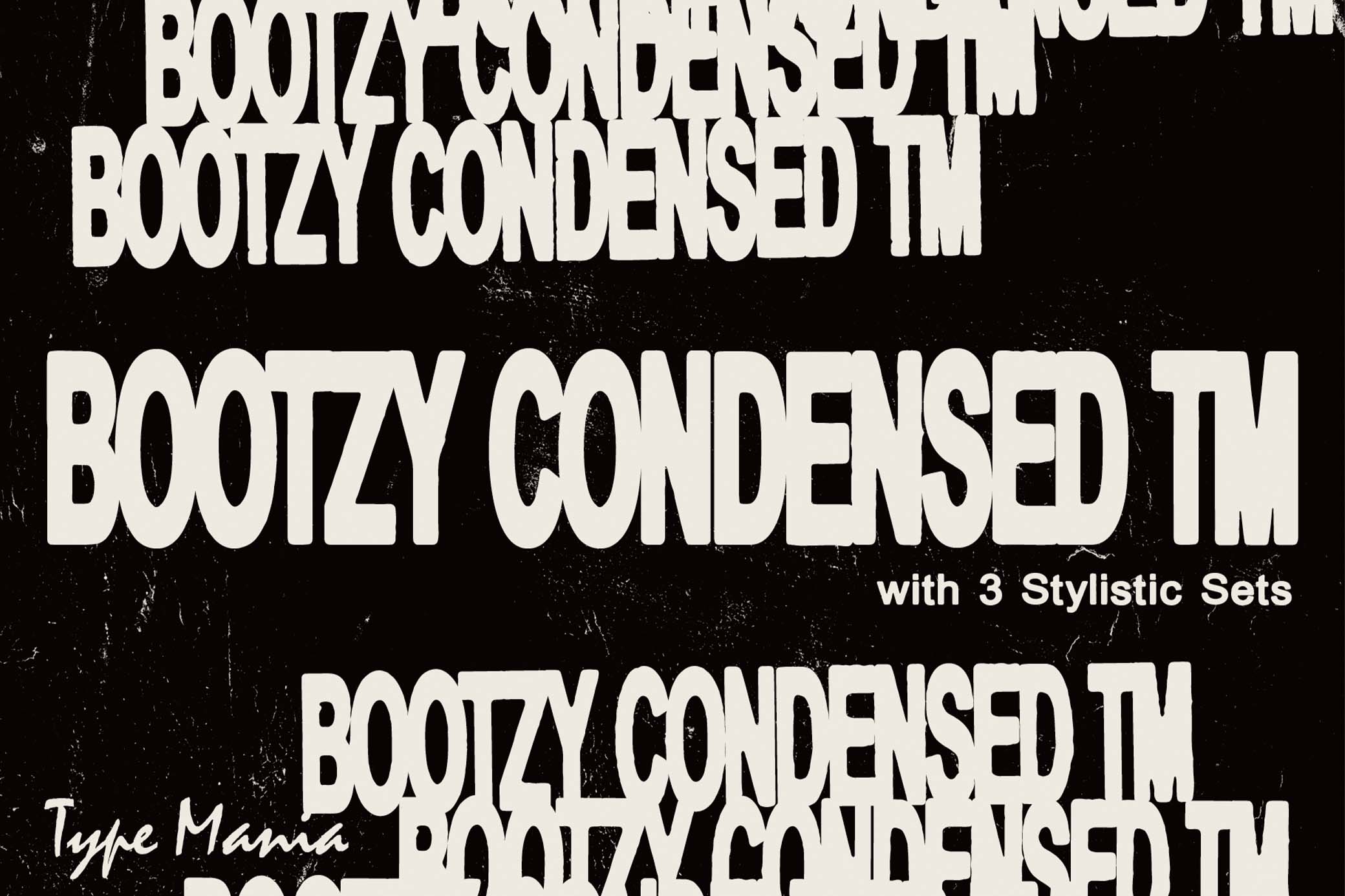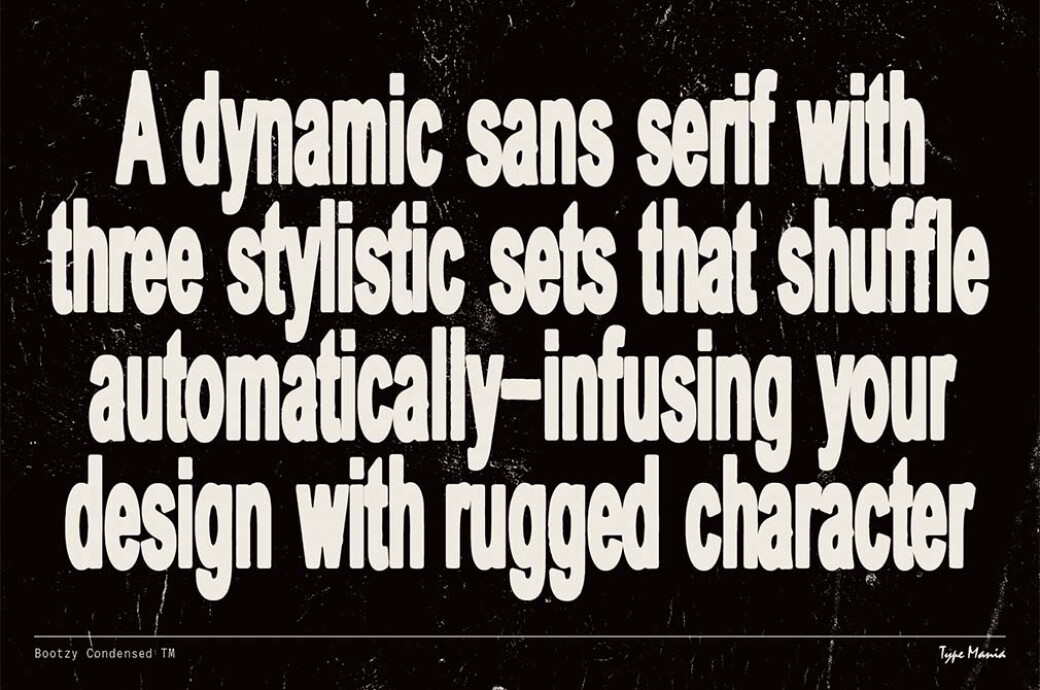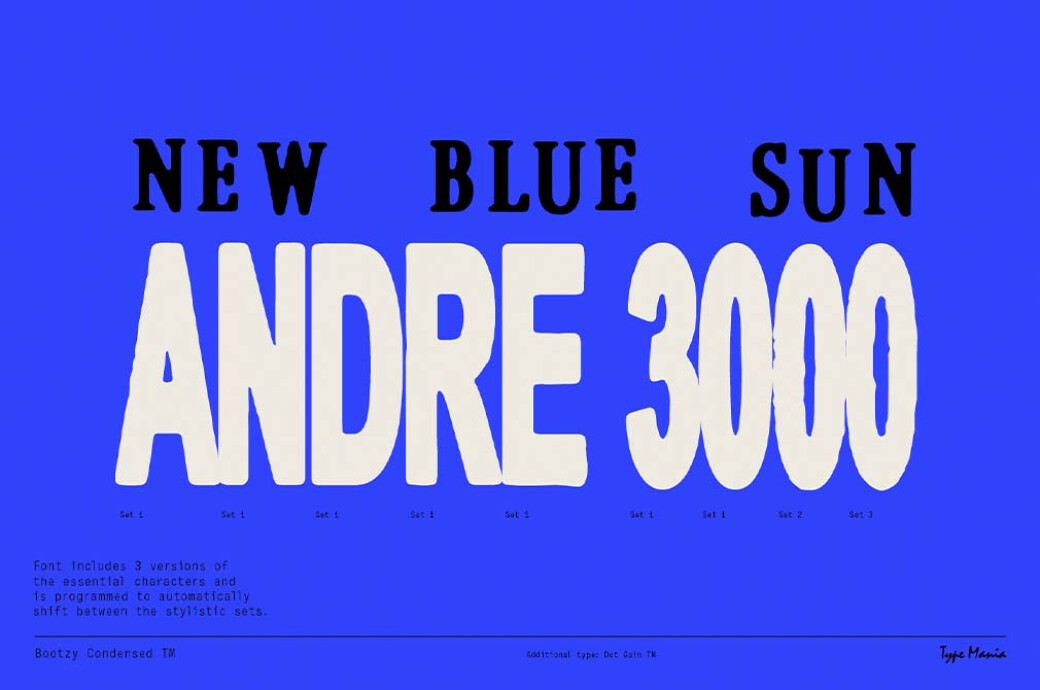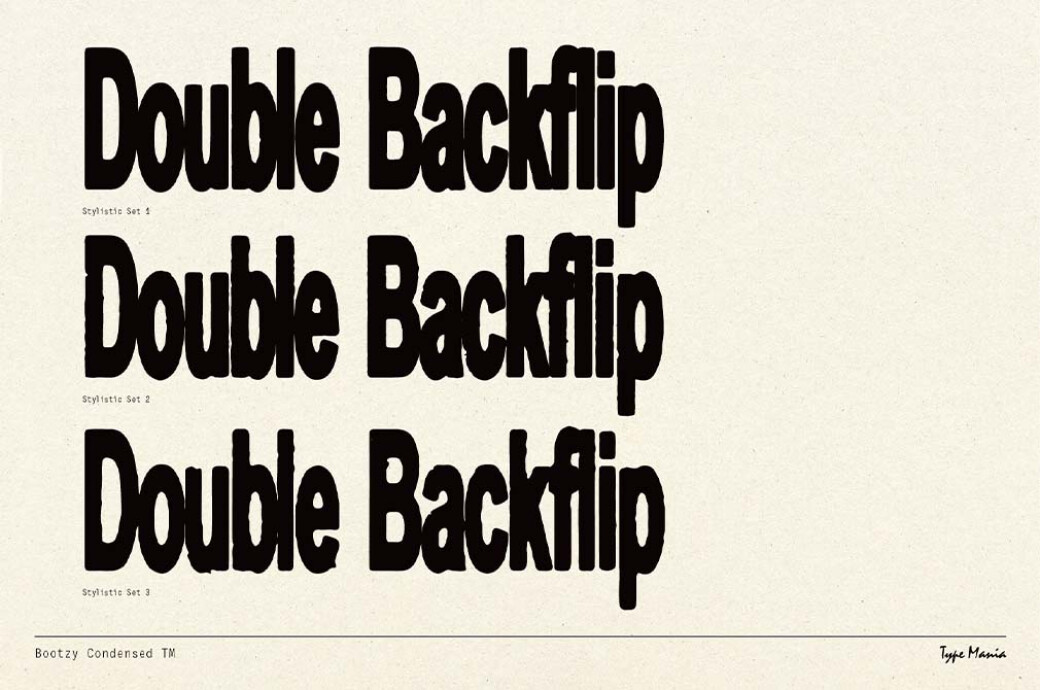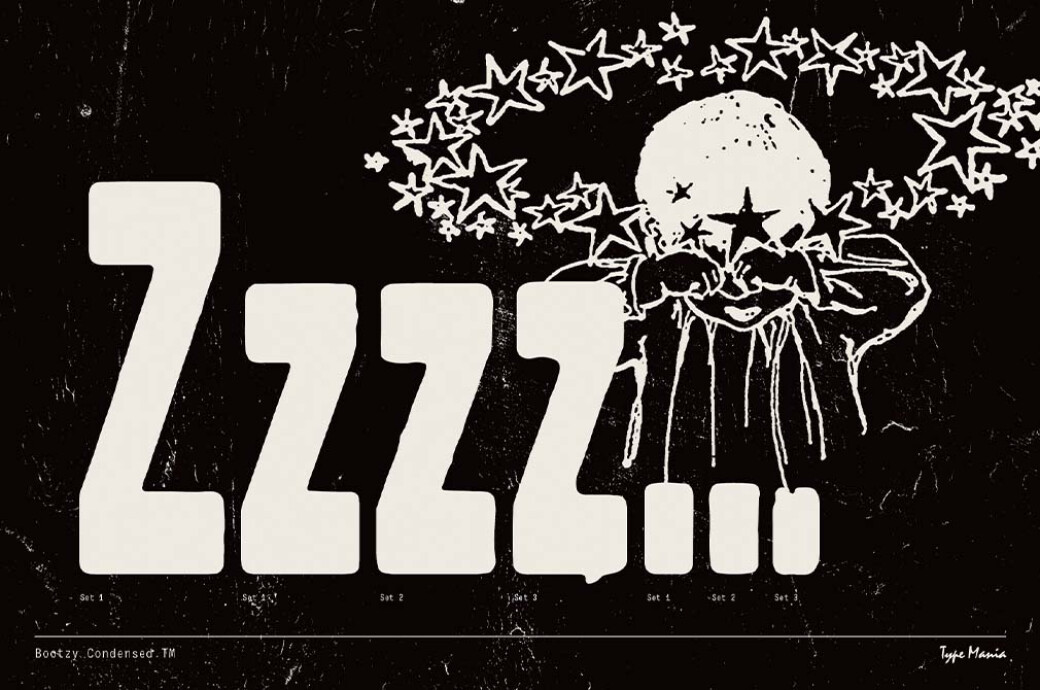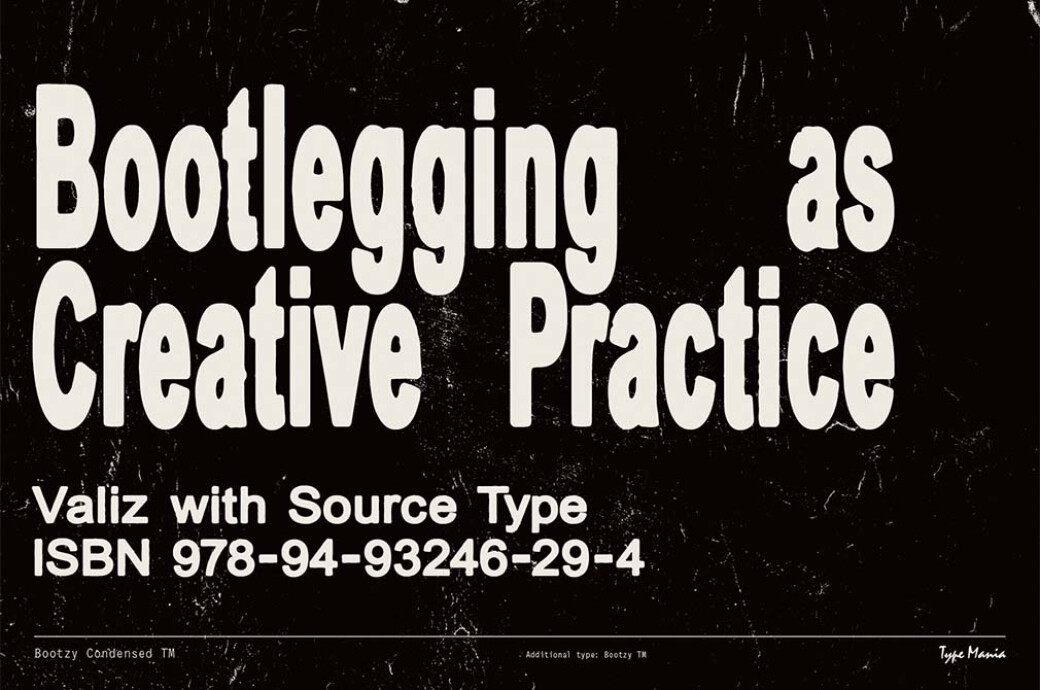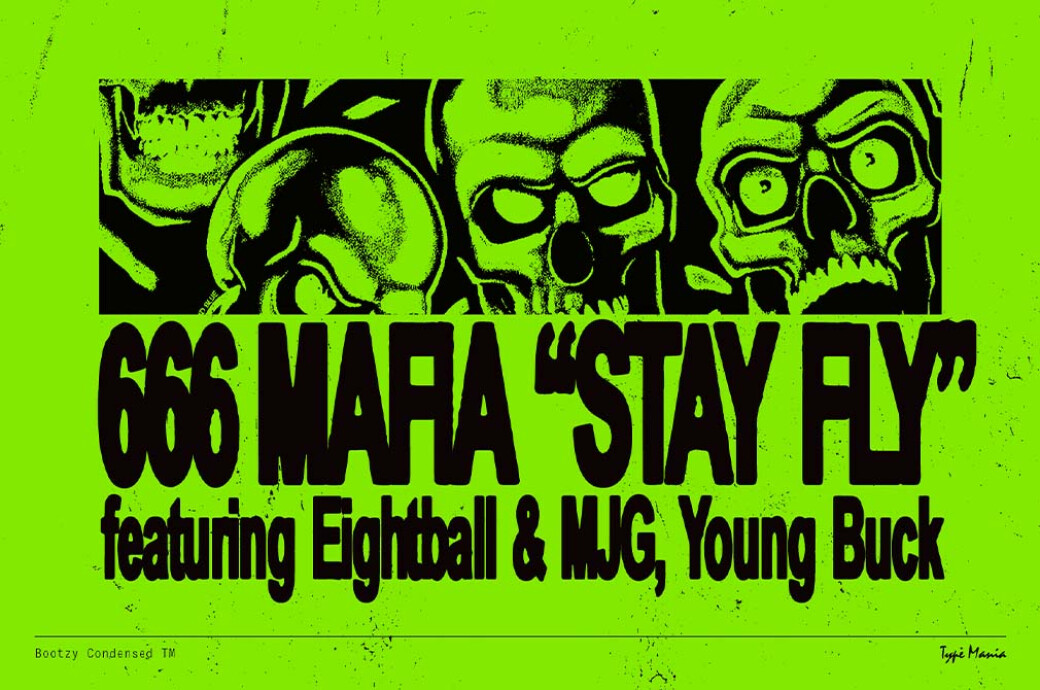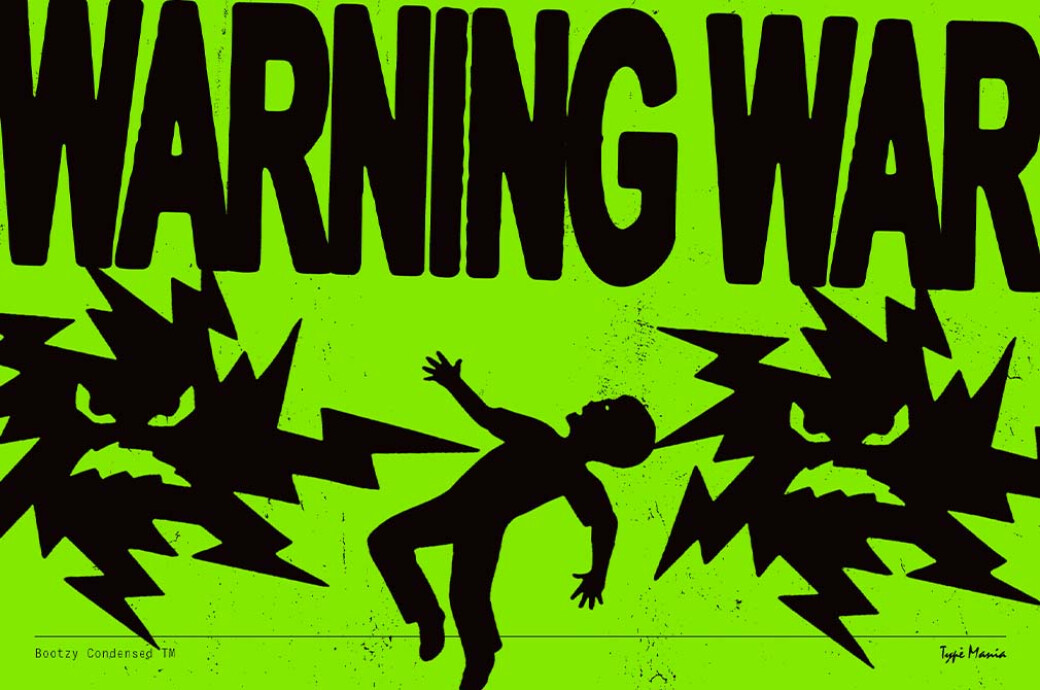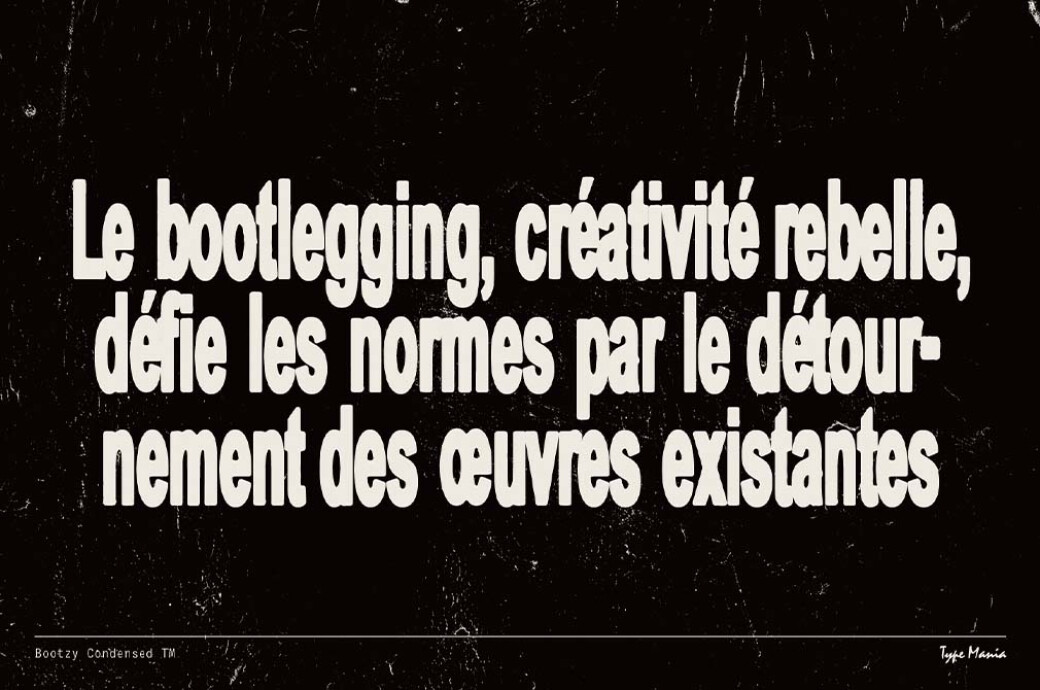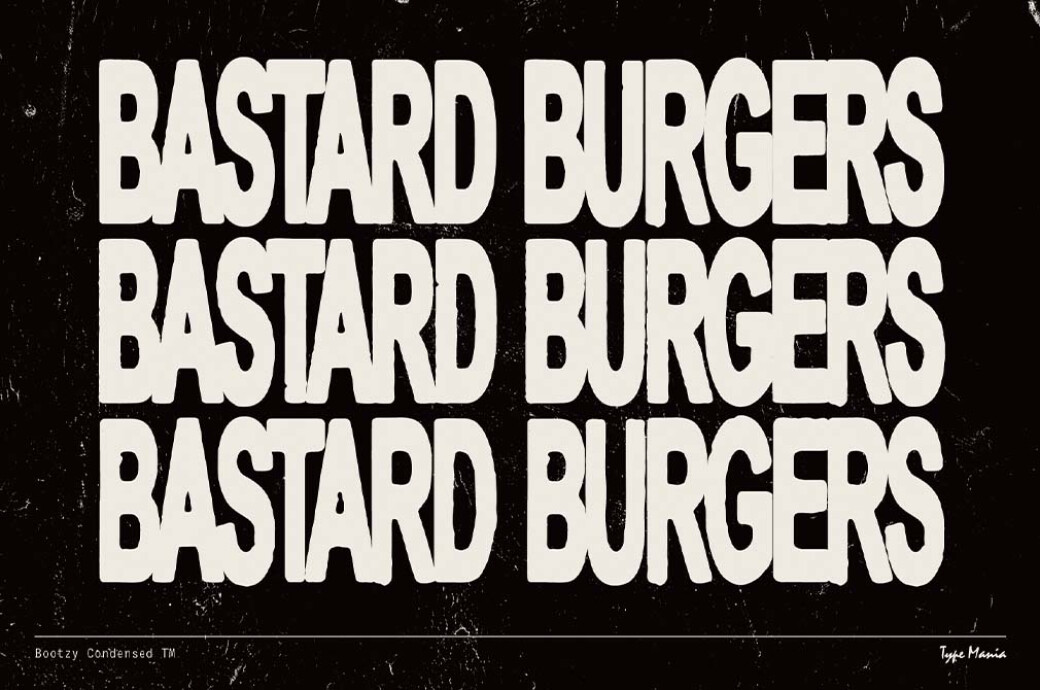
Bootzy Condensed TM | Rugged Font
Bootzy Condensed TM Rugged Font
A font 'born for and from a creative underground' — this is how Bootzy Condensend should be presented. Its bootlegged vibe overlaps with hip characters, drawing you deep into brutish graphic design.
Not long ago, condensed types were proclaimed a creative substitution of raw aesthetics. True story, they hardly ever look fancy, being something like a bad guy in your toolbox. If so, Bootzy is the BADDEST. Uppercases, lowercases, symbols, plus 3 stylistic sets. The font automatically shifts between the stylistic sets whenever the same glyphs are typed side by side. Yet it never shifts the mood, so it stays badass until the end.